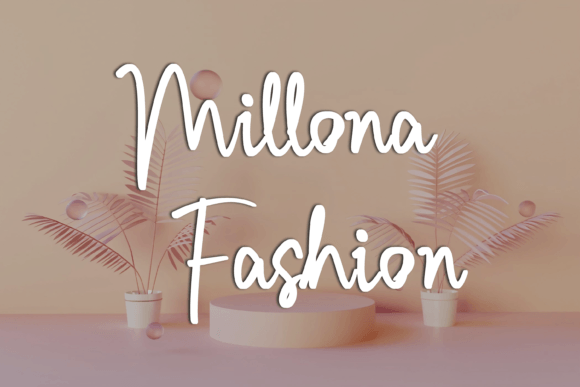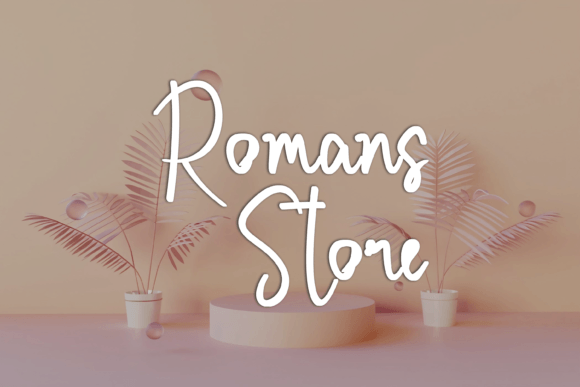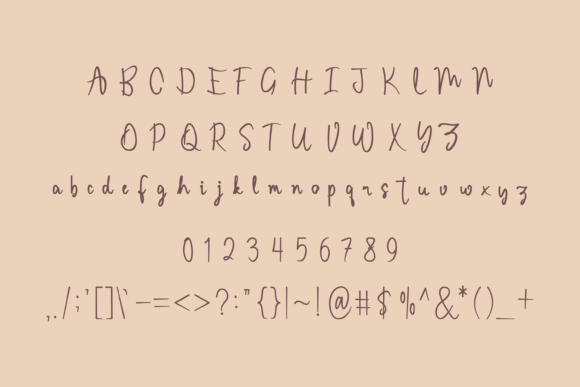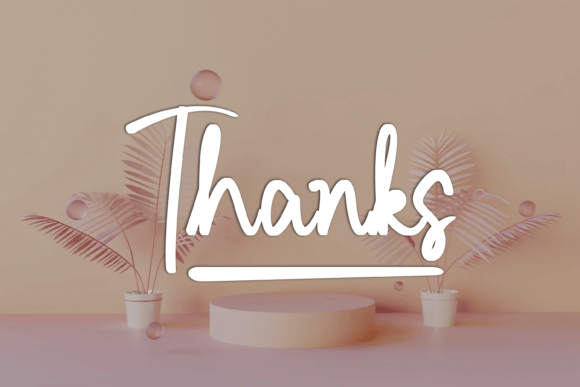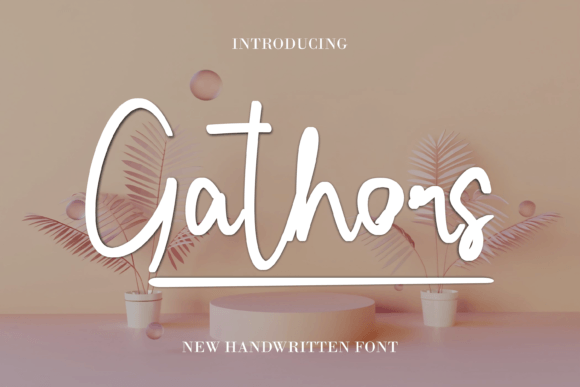
Gathors Font: Elevate Your Designs with Elegance and Class
In the world of typography, fonts play a crucial role in conveying the tone and aesthetic of a design. For those seeking a lovely and delicate script font that exudes elegance and class, look no further than Gathors Font. This beautiful font was particularly crafted for designers, crafters, and anyone who needs a refreshing and stunning look to their creations.
The Beauty of Gathors Font
Gathors Font is a script font that boasts a unique and captivating style, perfect for adding a touch of sophistication to any design. Its delicate strokes and elegant curves make it an ideal choice for a wide range of projects, from wedding invitations and party decorations to branding materials and digital content. The font’s refined appearance is sure to impress, leaving a lasting impression on your audience.
Key Features of Gathors Font
- Delicate and Elegant Design: Gathors Font features a beautiful, hand-crafted design that is both delicate and elegant, making it perfect for designs that require a touch of sophistication.
- Script Font Style: As a script font, Gathors Font offers a fluid and connected writing style that adds a personal and creative touch to your designs.
- Highly Versatile: This font is suitable for a wide range of projects, including invitations, branding, packaging, and digital content.
- Easy to Read: Despite its delicate nature, Gathors Font is highly legible, ensuring that your message is conveyed clearly and effectively.
Uses of Gathors Font
Gathors Font is an incredibly versatile font that can be used in various design projects, including:
- Wedding Invitations and Stationery: Add a touch of elegance and romance to your wedding invitations, save-the-date cards, and other stationery with Gathors Font.
- Branding and Packaging: Use Gathors Font to create sophisticated and eye-catching branding materials, such as logos, business cards, and product packaging.
- Digital Content: Elevate your digital content, including blog posts, social media graphics, and email newsletters, with the elegant and refined appearance of Gathors Font.
- Crafting and DIY Projects: Gathors Font is perfect for crafters and DIY enthusiasts who want to add a personal touch to their projects, such as handmade cards, scrapbooking, and iron-on designs.
Tips for Using Gathors Font
To get the most out of Gathors Font, consider the following tips:
- Pair with Bold Fonts: Combine Gathors Font with bold, sans-serif fonts to create a striking contrast and add visual interest to your designs.
- Use Pastel Colors: Soft pastel colors complement the delicate nature of Gathors Font, creating a sweet and feminine look.
- Experiment with Sizes: Gathors Font looks beautiful in various sizes, from large headings to smaller body text. Experiment with different sizes to find the perfect balance for your design.
Gathors Font is a lovely and delicate script font that exudes elegance and class, making it an excellent choice for designers, crafters, and anyone seeking to add a touch of sophistication to their designs. With its versatile nature, beautiful design, and ease of use, Gathors Font is sure to become a staple in your font collection. So why wait? Download Gathors Font today and elevate your designs to new heights!